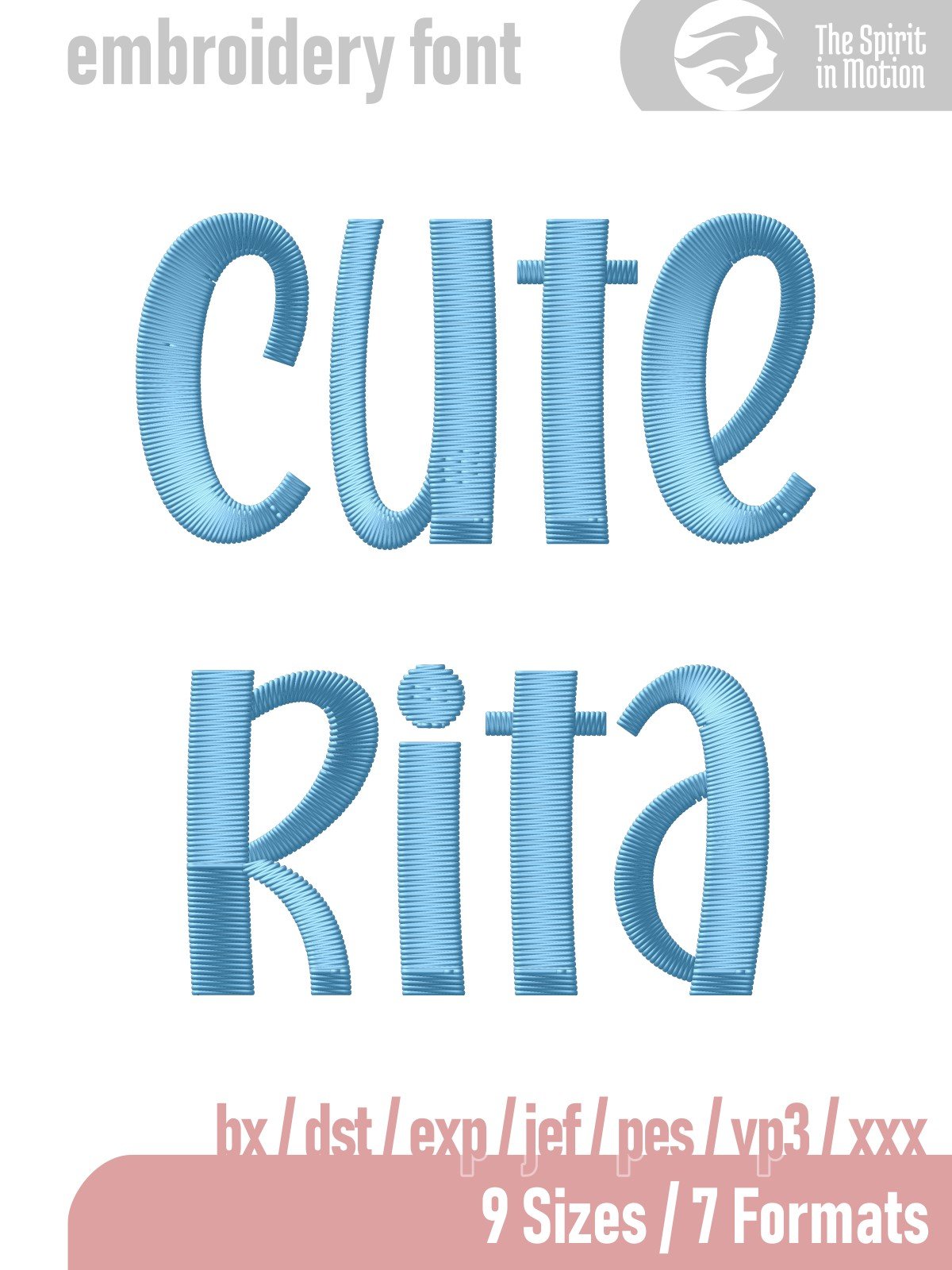
Cute Rita Machine Embroidery Font | PES, BX, DST
Add a touch of playful charm to your embroidery projects with this cheerful, handwritten-style font. Its smooth, rounded letters bring a fun and friendly feel to clothing, accessories, home décor, and more. Perfect for adding a whimsical touch to names, quotes, or lighthearted messages in your next machine embroidery design.